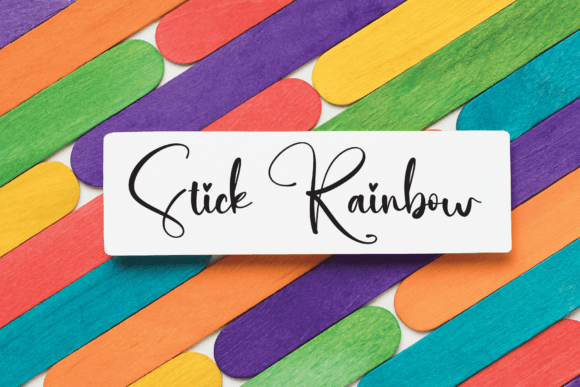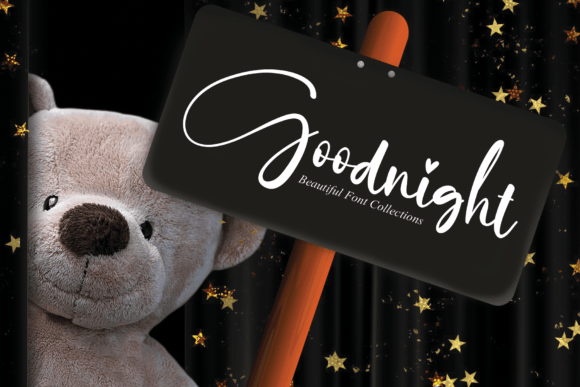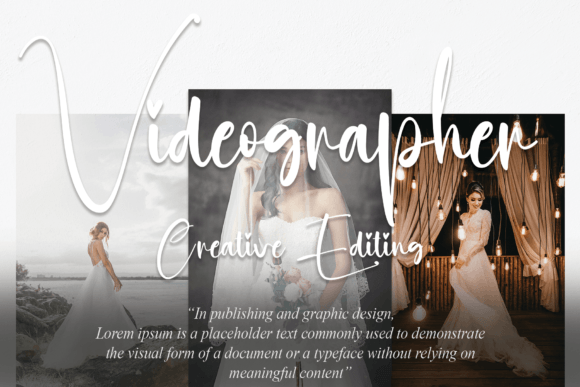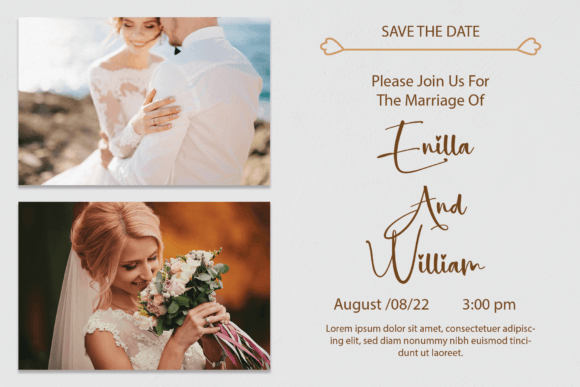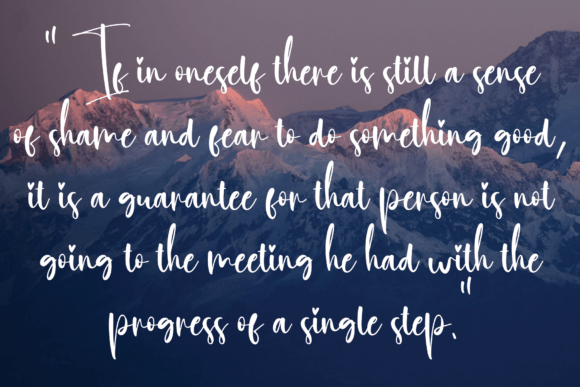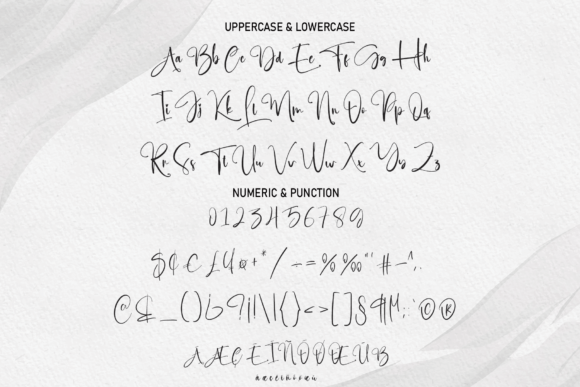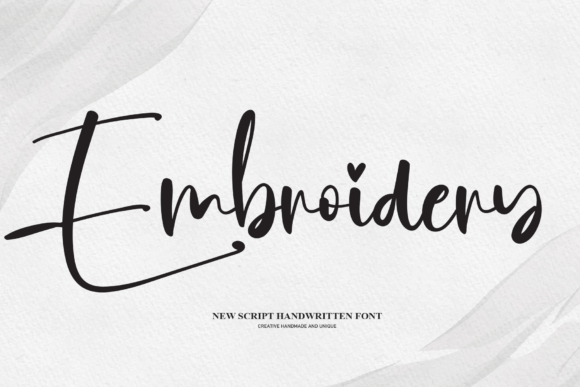
Discover the Elegance of Embroidery Font: Elevate Your Designs with Timeless Style
Are you a designer or crafter looking for a unique and elegant font to add a personal touch to your projects? Look no further than the Embroidery Font, a beautiful handwritten font that exudes sophistication and charm. With its incredibly distinct and timeless style, Embroidery Font is perfect for creating spectacular designs that will leave a lasting impression.
The Characteristics of Embroidery Font
Embroidery Font is a neat and beautiful handwritten font that is described by an elegant touch. Its unique characteristics make it stand out from other fonts, and its versatility allows it to be used in a wide range of projects. Here are some of the key features that make Embroidery Font so special:
- Elegant and Refined: Embroidery Font has an undeniable air of sophistication, making it perfect for designs that require a touch of luxury and refinement.
- Handwritten with Love: The font’s handwritten nature gives it a personal and intimate feel, making it ideal for projects that require a human touch.
- Distinct and Timeless: Embroidery Font’s unique style is both modern and classic, ensuring that your designs will remain timeless and relevant for years to come.
Uses for Embroidery Font
Embroidery Font is incredibly versatile and can be used in a wide range of projects, including:
- Branding and Logo Design: Add a touch of elegance to your brand’s identity with Embroidery Font, perfect for creating sophisticated logos and typography.
- Stationery and Invitations: Create beautiful and unique stationery, invitations, and greeting cards that will make a lasting impression.
- Fabric Design: Use Embroidery Font to create stunning fabric designs for clothing, home decor, and other textile projects.
- Digital Art and Illustration: Add a touch of whimsy and elegance to your digital art and illustrations with Embroidery Font.
Tips for Using Embroidery Font
To get the most out of Embroidery Font, here are some tips to keep in mind:
- Experiment with Colors: Embroidery Font looks stunning in a variety of colors, so don’t be afraid to experiment and find the perfect hue for your design.
- Mix and Match: Combine Embroidery Font with other fonts and design elements to create unique and interesting visual effects.
- Pay Attention to Details: Embroidery Font’s elegant style means that even the smallest details can make a big impact, so be sure to pay attention to kerning, spacing, and other typography elements.
Embroidery Font is a truly special font that offers a unique combination of elegance, sophistication, and timeless style. Whether you’re a designer, crafter, or simply someone who appreciates beautiful typography, Embroidery Font is sure to capture your heart. With its versatility, charm, and incredible distinctiveness, Embroidery Font is the perfect choice for any project that requires a touch of luxury and refinement.